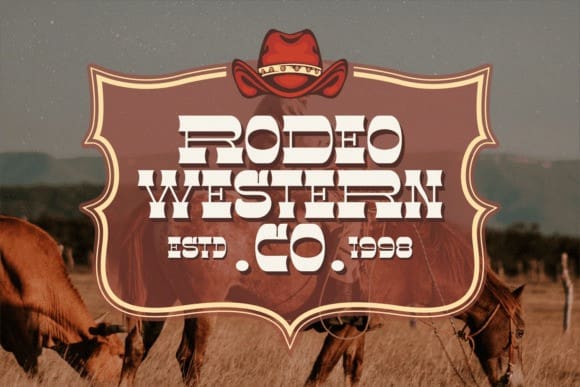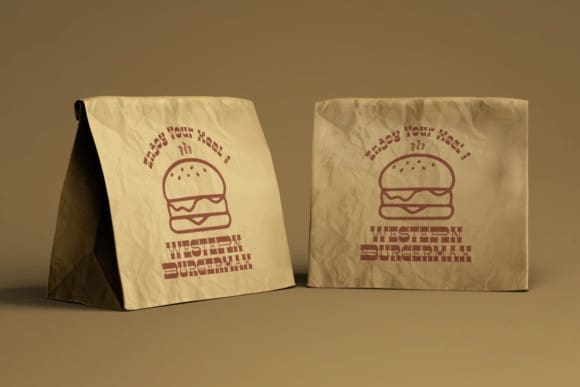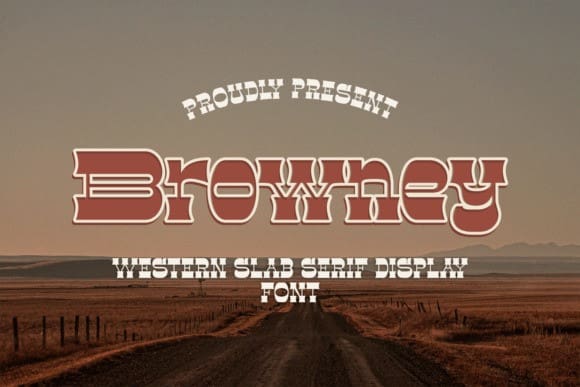
Browney Slab Font
Browney Slab Font is an attractive western slab serif typeface that’s perfect for adding a touch of rustic charm to your designs. Its bold and sturdy appearance creates a sense of strength and reliability, making it ideal for branding, advertising, and any project that demands a strong visual impact. Saddle up and get ready to make a statement with this font!